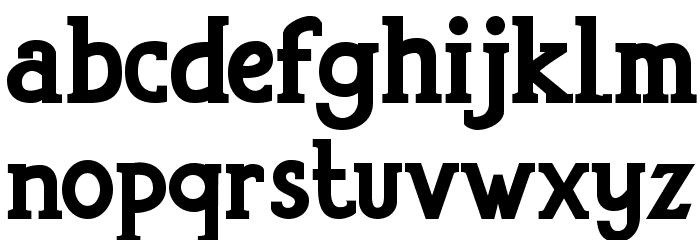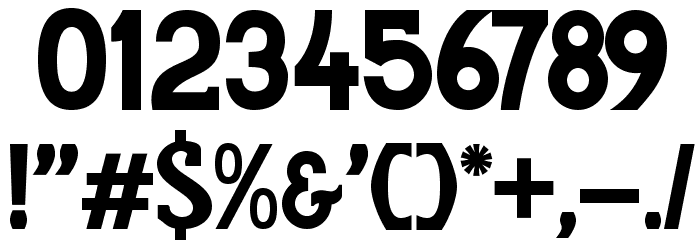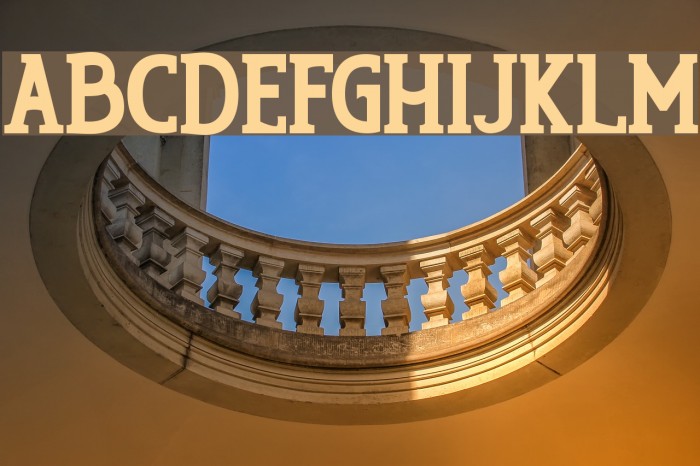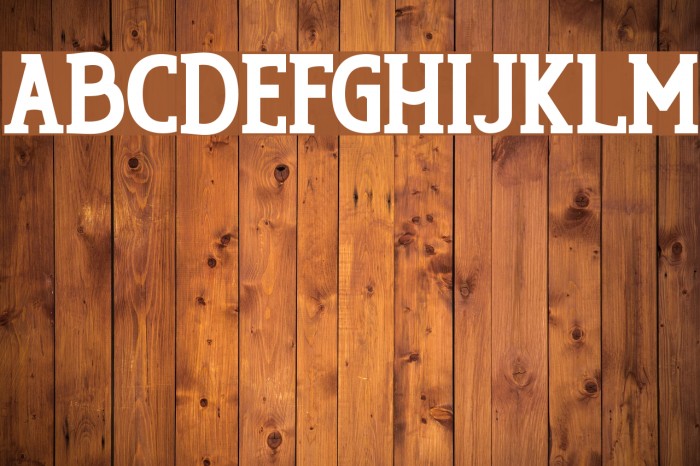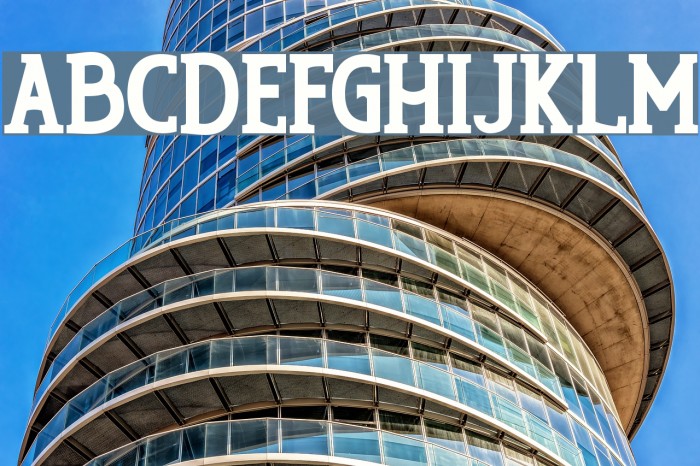
RumouraPERSONALUSEONLY-Bold Font
This font features a bold and robust design with thick strokes and a strong presence. The characters are well-defined with a slight curvature that adds a touch of elegance to the otherwise solid and authoritative appearance. The uppercase letters are tall and commanding, while the lowercase letters maintain a consistent style that complements the overall look. Numbers are equally bold, ensuring readability and impact. The special characters are designed to match the boldness of the alphabet, making them suitable for various design needs. This font is ideal for projects that require a strong visual impact.
A bold and robust font with thick strokes and a strong presence.
- Proposed Projects: Ideal for headlines, posters, branding, and any design requiring a strong visual impact.